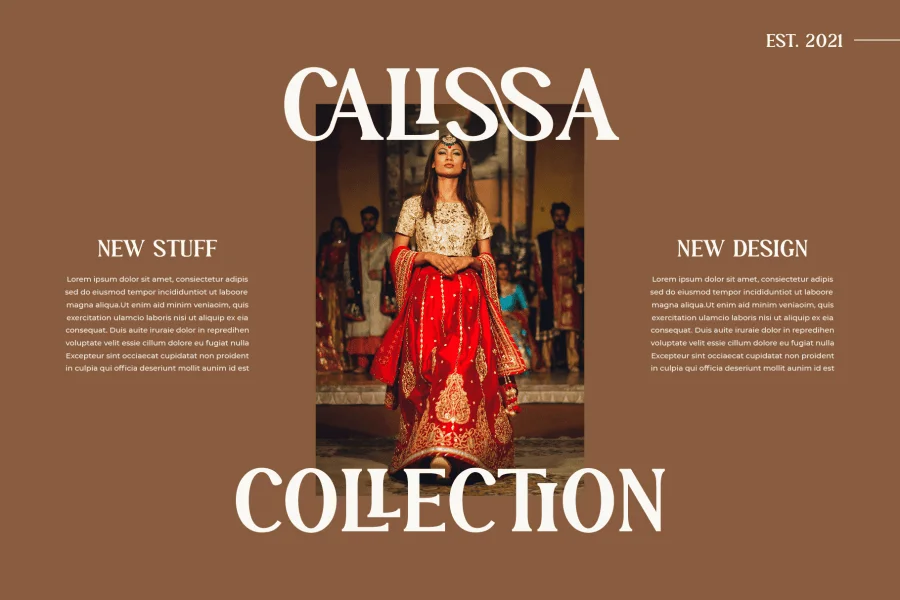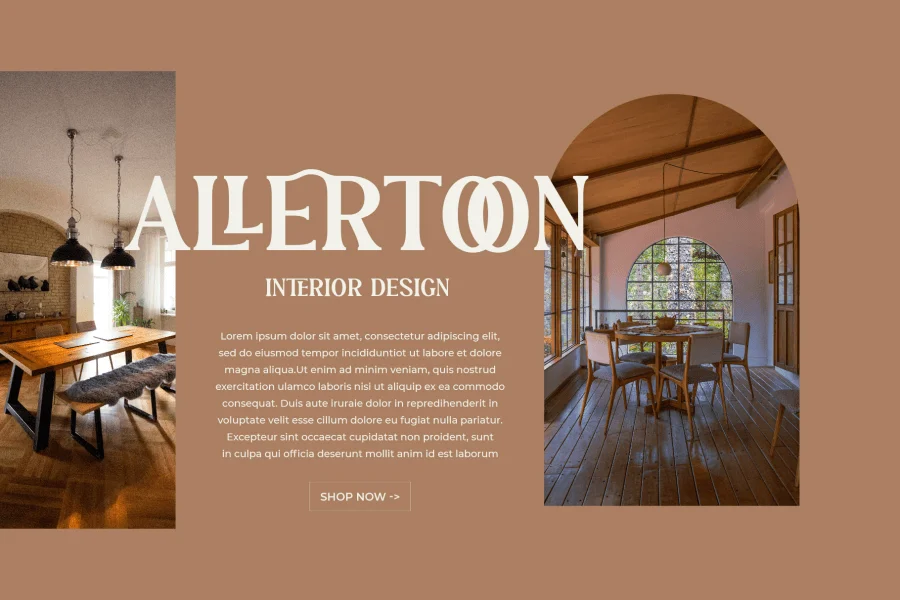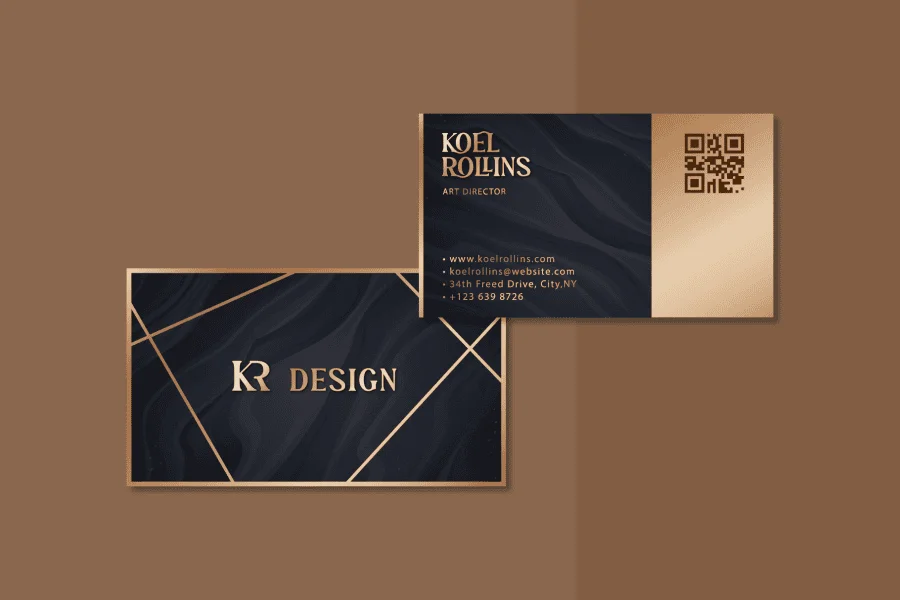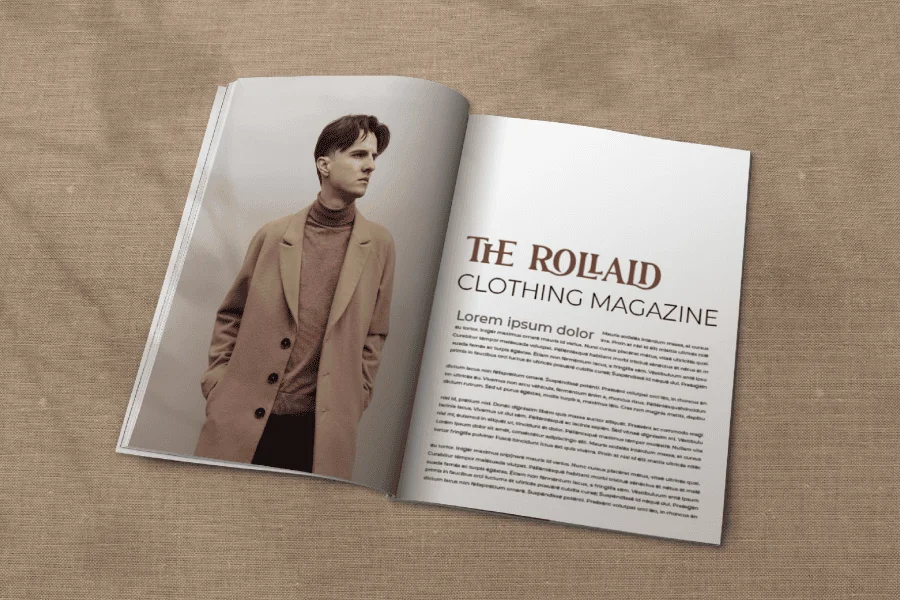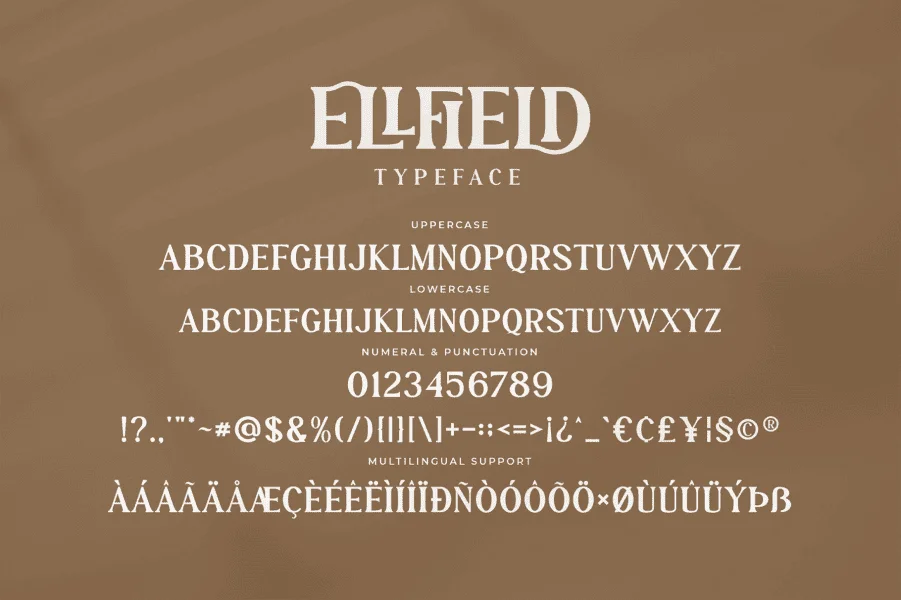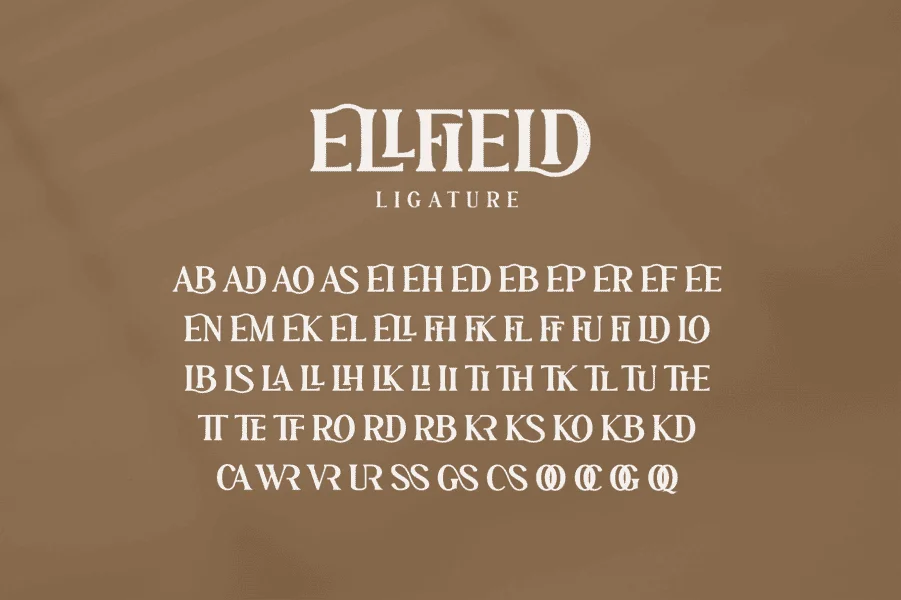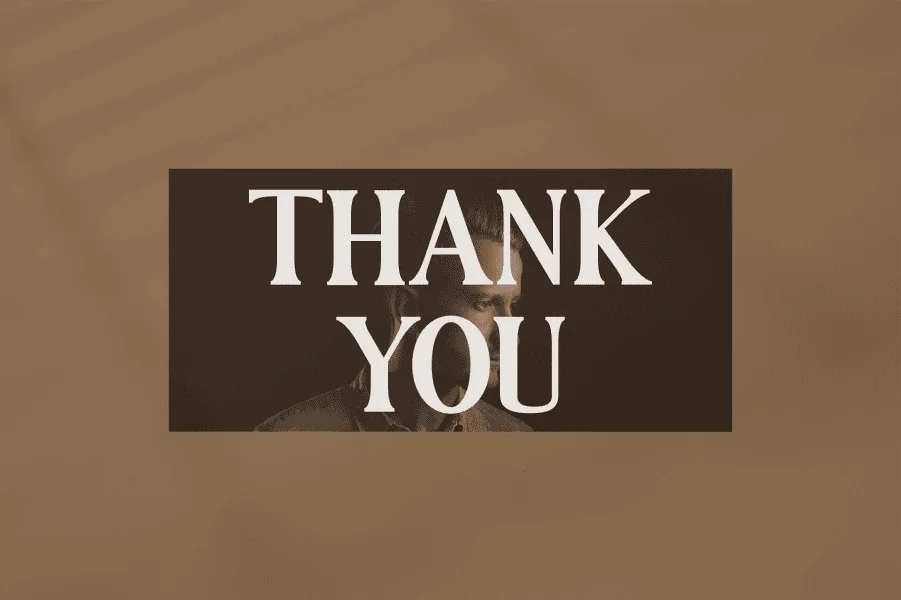
Ellfield is a high-contrast display serif typeface characterized by its structured, sweeping curves and sharp, planar terminals. The design features a clear tension between robust, thick vertical stems and defined horizontal strokes, creating a striking typographic rhythm. Its most defining characteristic is its extensive set of expressive ligatures and nested letterforms, which are available as PUA-encoded characters to seamlessly intertwine letters into cohesive, custom-looking wordmarks. The overall structure is upright and compact, maintaining a sophisticated and architectural presence on the page.
This typeface is exceptionally suited for high-end editorial layouts, fashion mastheads, luxury branding, and identity design. Its expressive ligatures make it a natural choice for prominent headlines, book covers, and cosmetic packaging where a sense of bespoke craftsmanship is desired. Whether applied to minimalist business cards or large-scale promotional posters, the font brings an elevated, artistic touch to modern design projects.